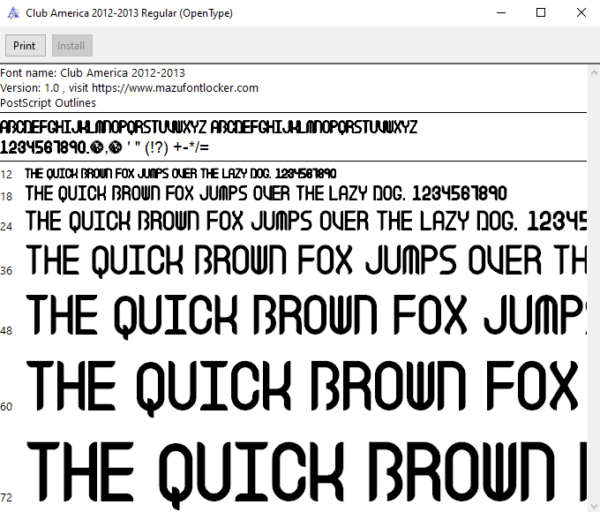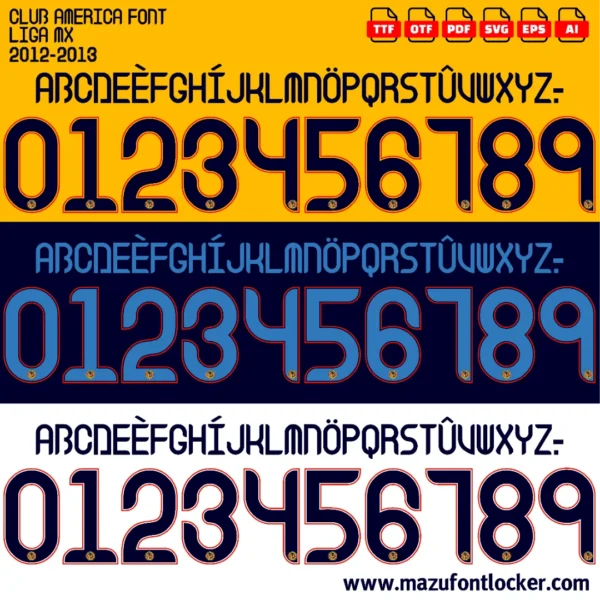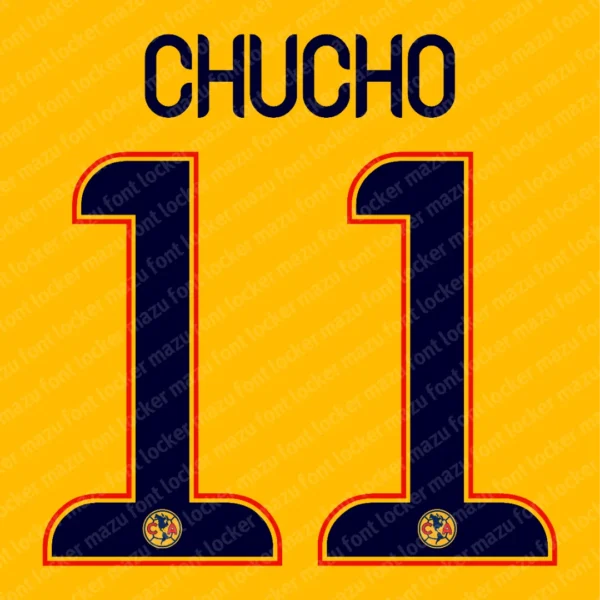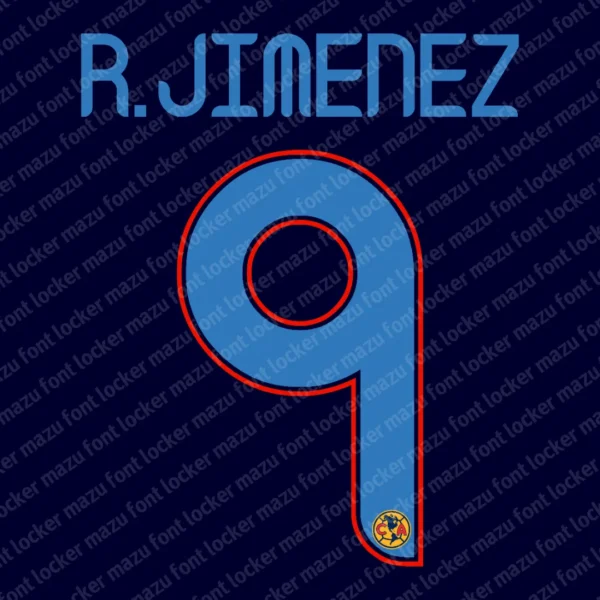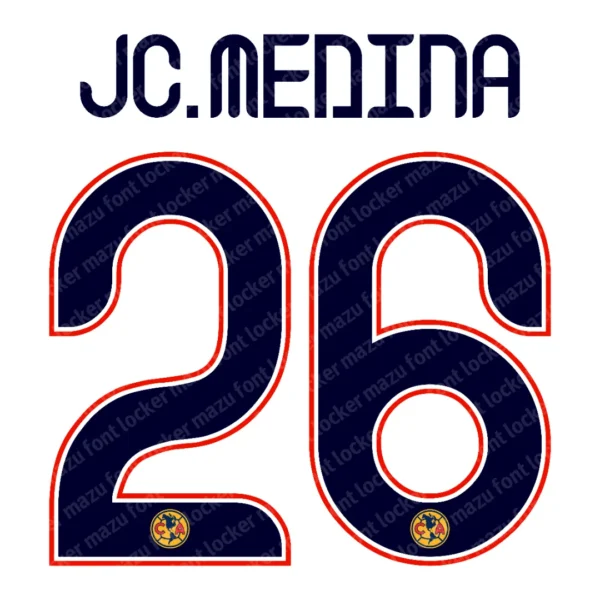
Club America 2012-2013 Font Vector – Legendary Las Águilas Masterpiece
This font captures the commanding, steel-sharp, lightning-strike, and precision-engineered lettering that perfectly embodies Club América’s iconic club identity, proud Mexican heritage, never-back-down mentality, and raw football power — delivering unmatched authenticity, premium quality, explosive energy, and elite Liga MX & international dominance for professional jersey mockups, dynamic football graphics, premium sports branding, passionate fan creations, and high-end design projects.
Club América 2012-2013 Font Vector – Iconic Yellow & Blue Typeface
The Club América 2012-2013 Font Vector is a premium typeface that accurately recreates the official match lettering worn by Club América during the 2012-2013 season. This high-quality vector font kit captures the bold, clean, and instantly recognizable typography that perfectly complements the club’s iconic yellow and blue identity.
Designed for professional designers, football enthusiasts, and passionate Club América supporters, the Club América 2012-2013 Font Vector delivers exceptional authenticity for creating realistic jersey mockups, football merchandise, social media graphics, match posters, and custom fan artwork. Every character has been carefully recreated to match the powerful and precise visual style of one of Mexico’s most successful and popular football clubs.
This font stands out thanks to its precise vector construction and authentic club styling. Every letter and numeral has been meticulously recreated to match the official shirt lettering used throughout the 2012-2013 Liga MX and cup campaigns. Whether you’re producing professional kit templates or creating eye-catching football content, the Club América 2012-2013 Font Vector delivers a genuine match-ready appearance.
The lettering featured in the Club América 2012-2013 Font Vector combines clean geometric lines with powerful modern proportions. The result is a premium and highly readable typeface that reflects Club América’s winning spirit, Águilas heritage, and massive fanbase in Mexican football.
• Complete uppercase A–Z alphabet and numbers 0–9 in authentic Club América 2012-2013 style
• Special Club América badge glyph – Press the “:” (Colon) key to insert the club badge